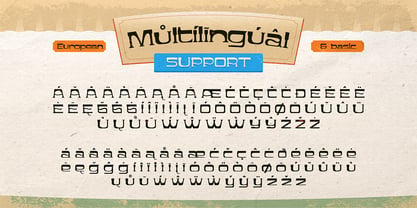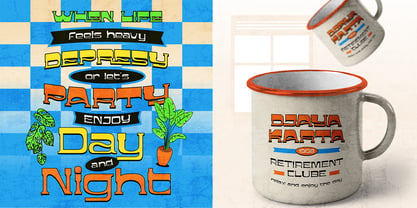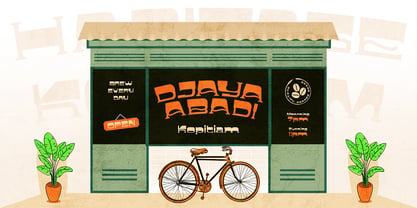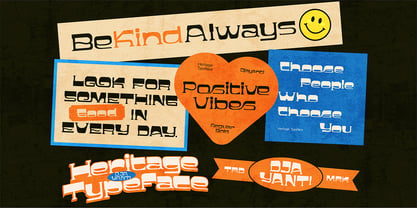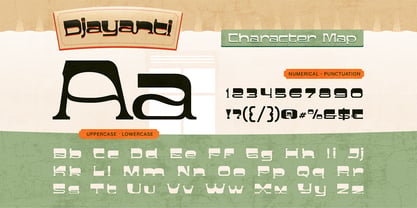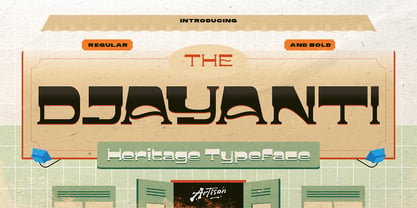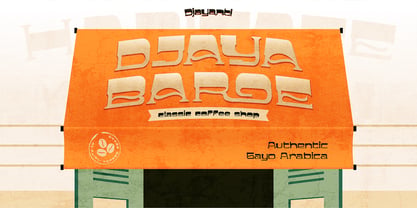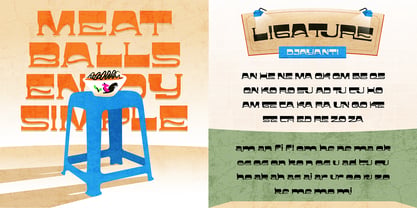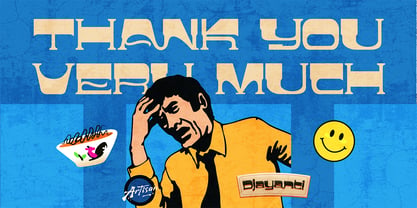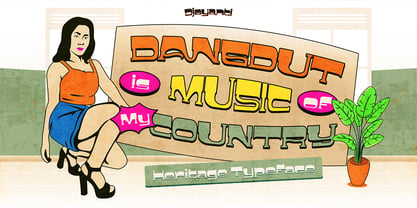
Djayanti
von Artisan Themes
Die Schriftfamilie Djayanti wurde von Meidy Meichico entworfen und von Artisan Themes veröffentlicht. Djayanti enthält 2 Stile und Familienpaketoptionen. Mehr über diese Familie
Djayanti is a bold heritage-inspired typeface that blends traditional Southeast Asian signage with a fresh, modern twist. It carries that retro–kopitiam charm, but wrapped in a stylish, editorial look that feels right at home in today’s design scene. With its unique letter curves, playful cut-ins, and slightly quirky rhythm, Djayanti brings personality to any layout—whether you're designing café branding, nostalgic posters, travel journals, or vintage-inspired packaging. The font comes in Regular and Bold, making it super flexible for headlines, quotes, logos, menus, and anything that needs an authentic cultural character with a cool editorial touch. If you're looking for a font that’s expressive, full of local flavor, and still clean enough for modern layouts — Djayanti is your new design staple. Features: A - Z set (Uppercase & Lowercase), Number, Punctuation, Ligatures, Multilingual
Designer: Meidy Meichico
Foundry: Artisan Themes